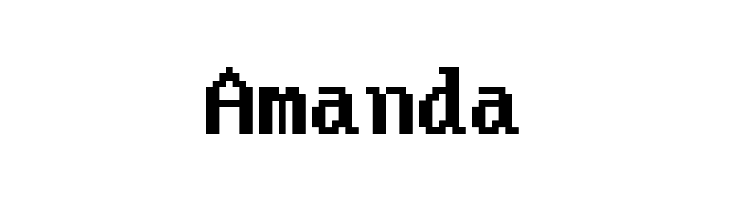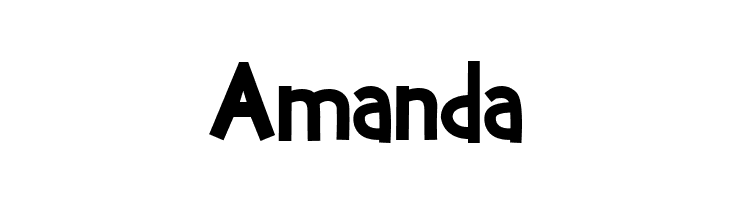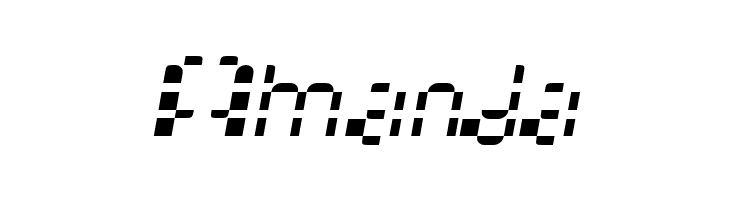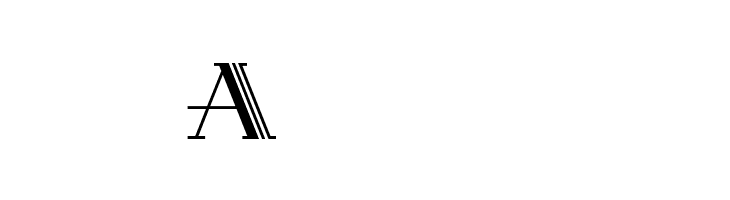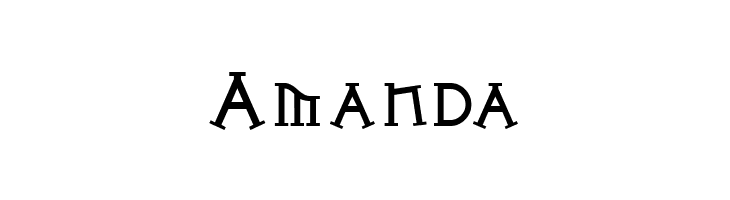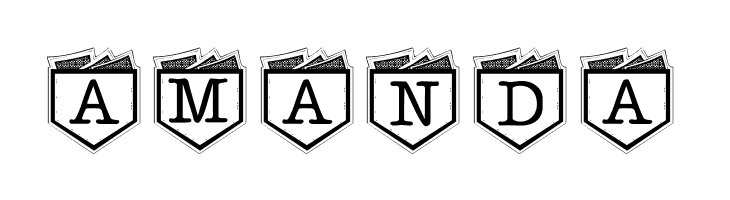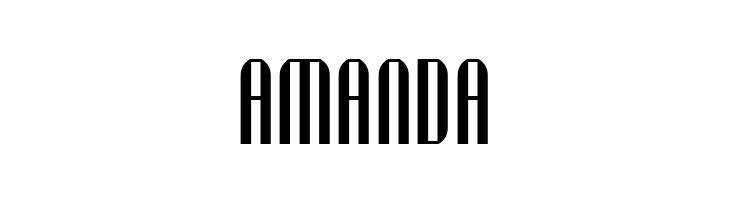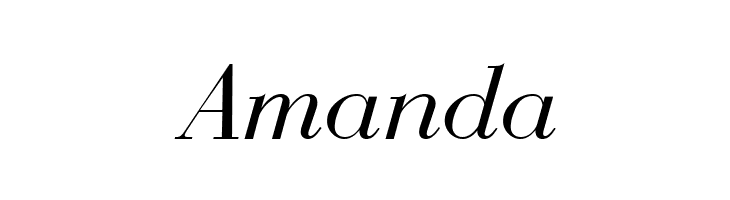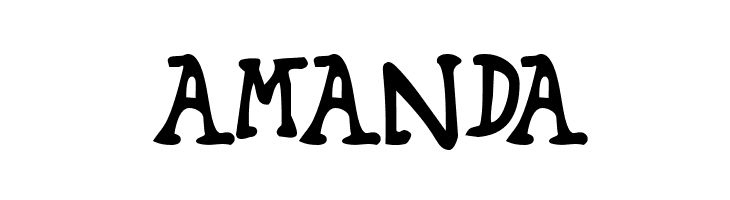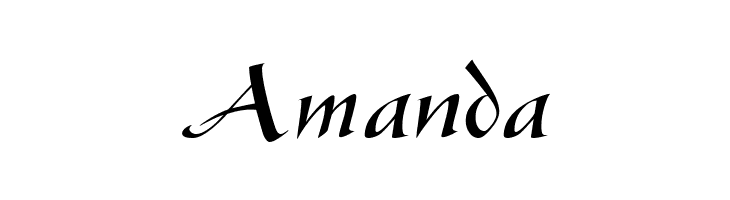
A bold, geometric font with sharp angles and thick strokes, ideal for impactful designs.
A playful, handwritten font with fluid and organic strokes.
A pixelated, digital-style font with a modern, tech-inspired aesthetic.
A vibrant and eclectic font with unique, decorative characters.
A bold, industrial-style font with angular lines and geometric elements.
A bold, expressive font with sharp, angular strokes and a calligraphic influence.
A bold, dynamic font with a playful, hand-drawn style.
A playful, hand-drawn font with exaggerated curves and a whimsical style.
An ornate, calligraphy-inspired font with intricate detailing and a classic yet modern appeal.
A modern, sleek font with tall, narrow characters and minimal contrast.
A playful, rounded font with smooth curves and a friendly appearance.
A modern, flowing script font with elegant, slanted characters.
A sleek, modern font with thin, geometric strokes and a minimalist aesthetic.
A playful, hand-drawn font with quirky, uneven strokes.
A bold, italicized handwritten font with dynamic strokes.
A playful, hand-drawn font with bold, rounded characters.
A playful, whimsical font with quirky, hand-drawn letterforms.
A bold, geometric font with strong, consistent strokes and an industrial feel.